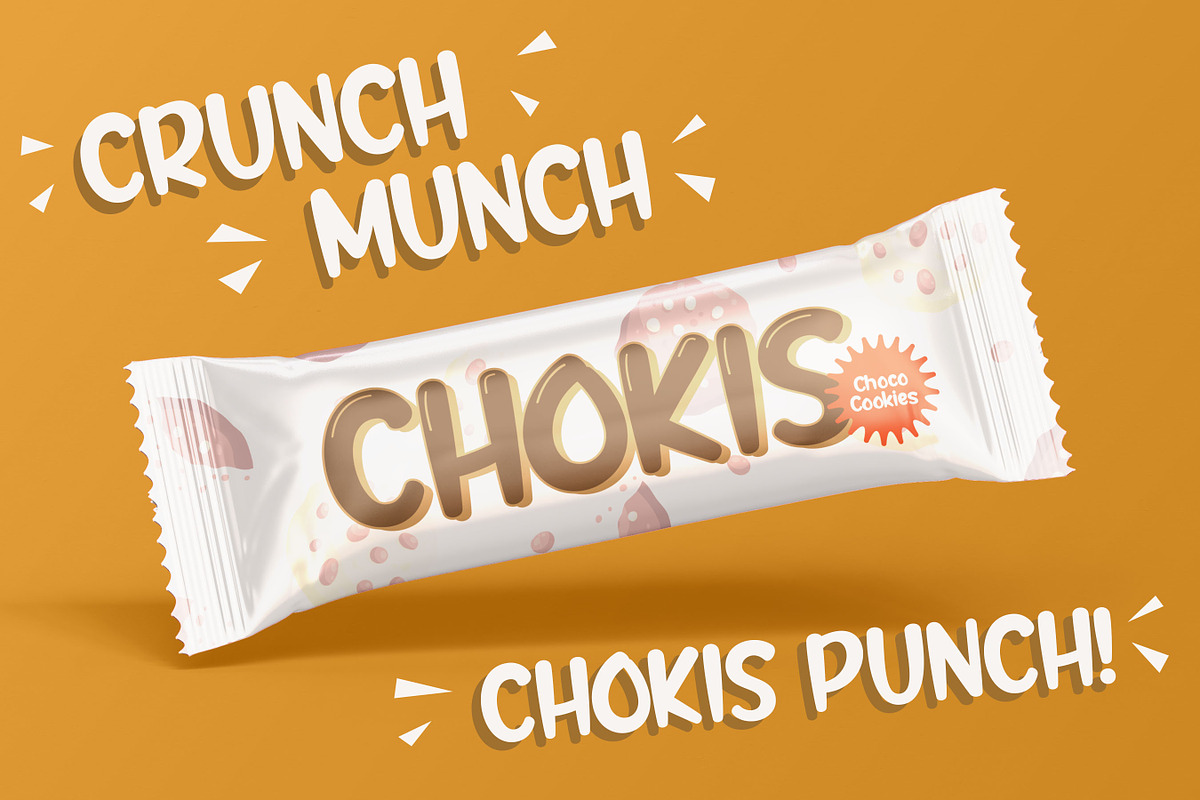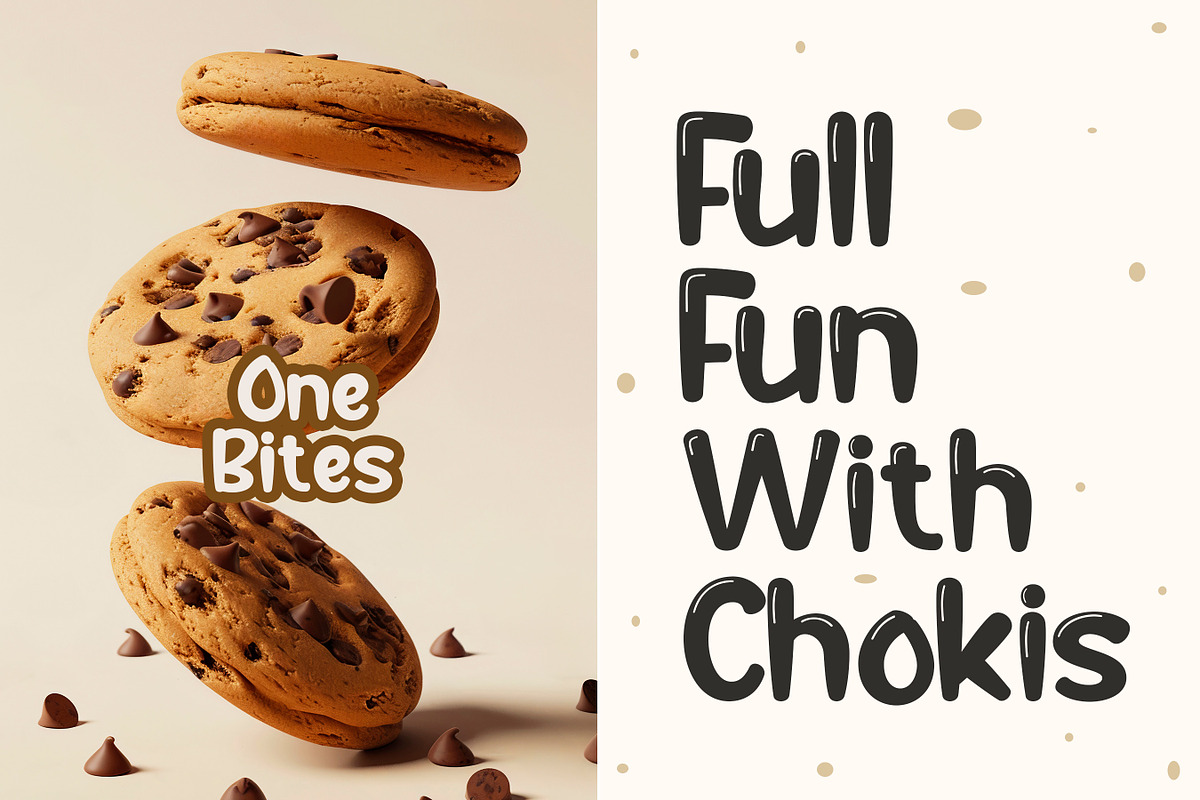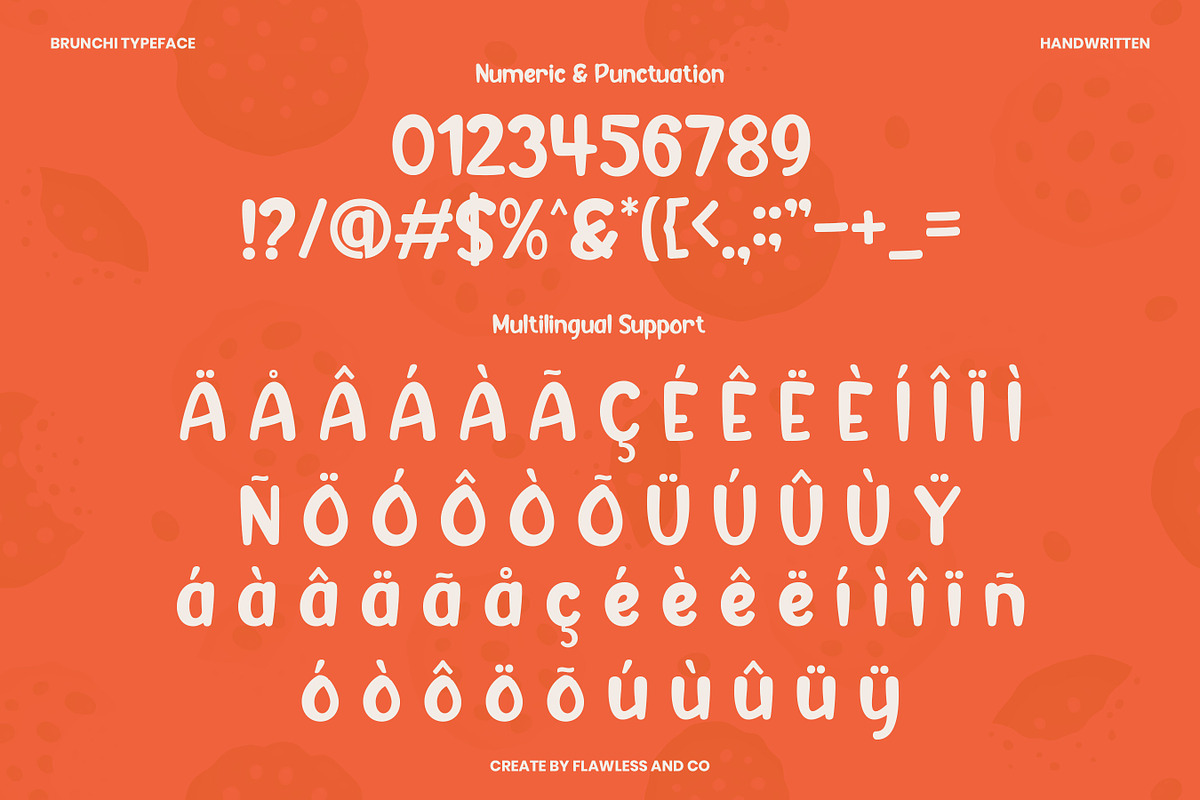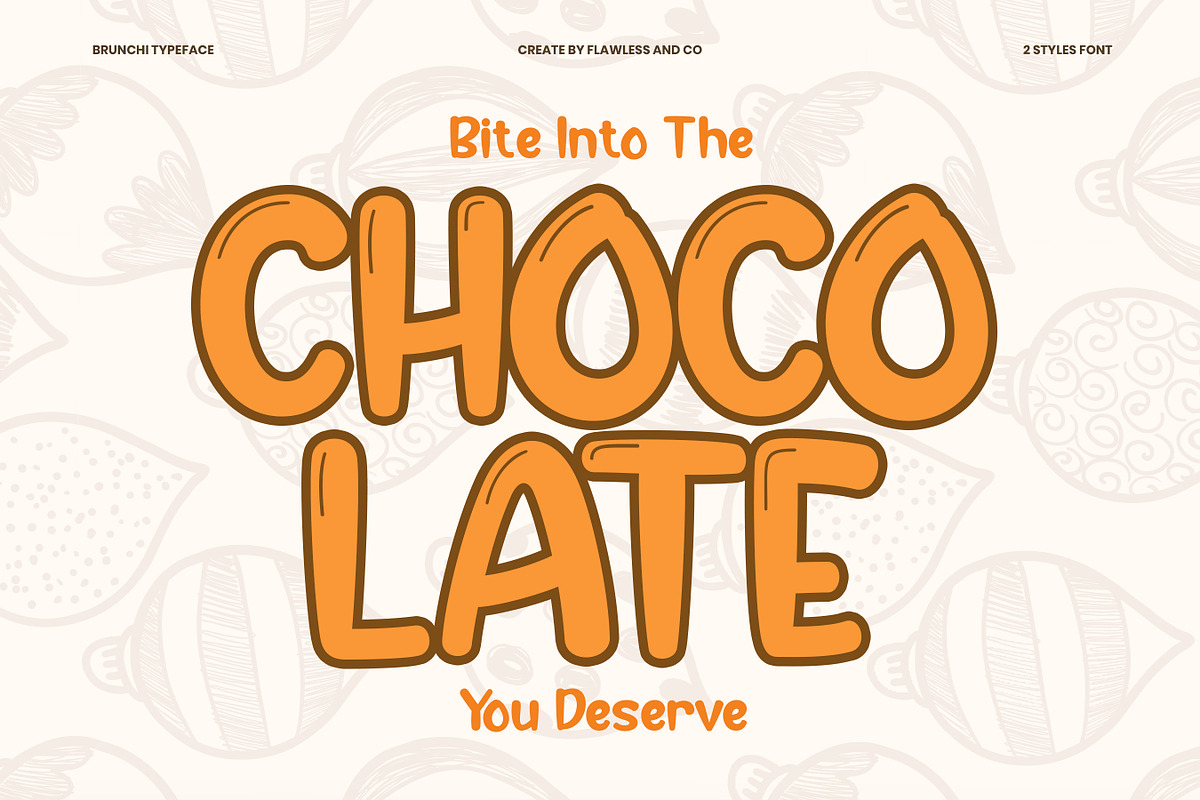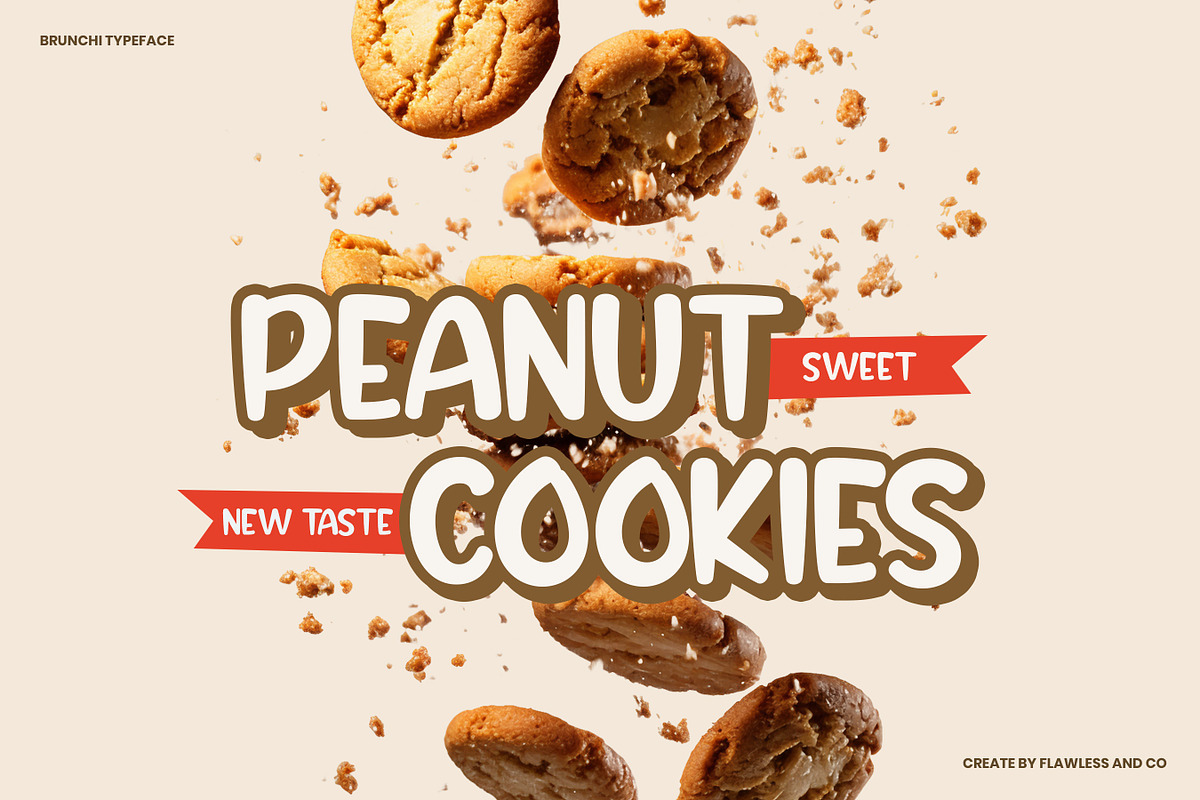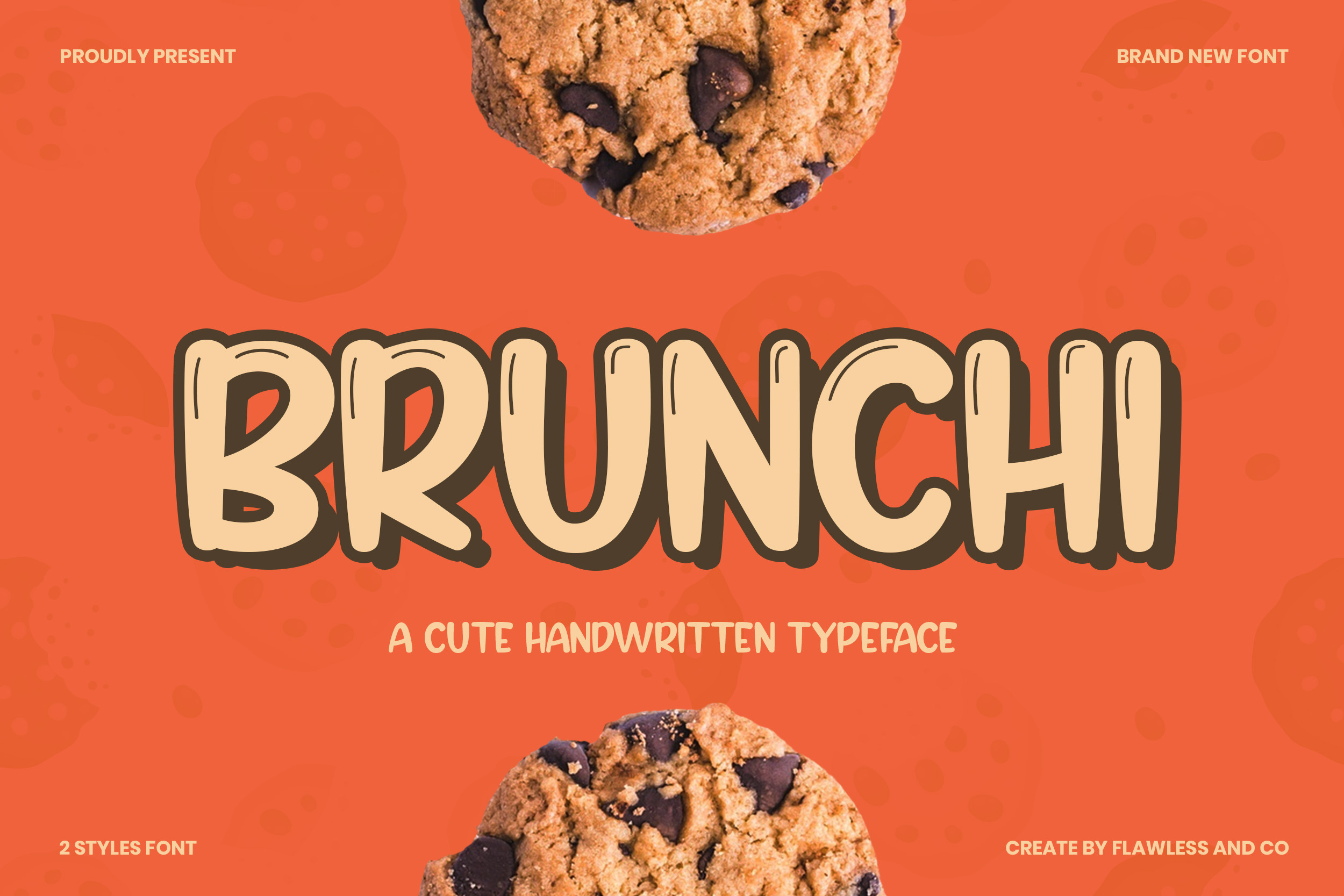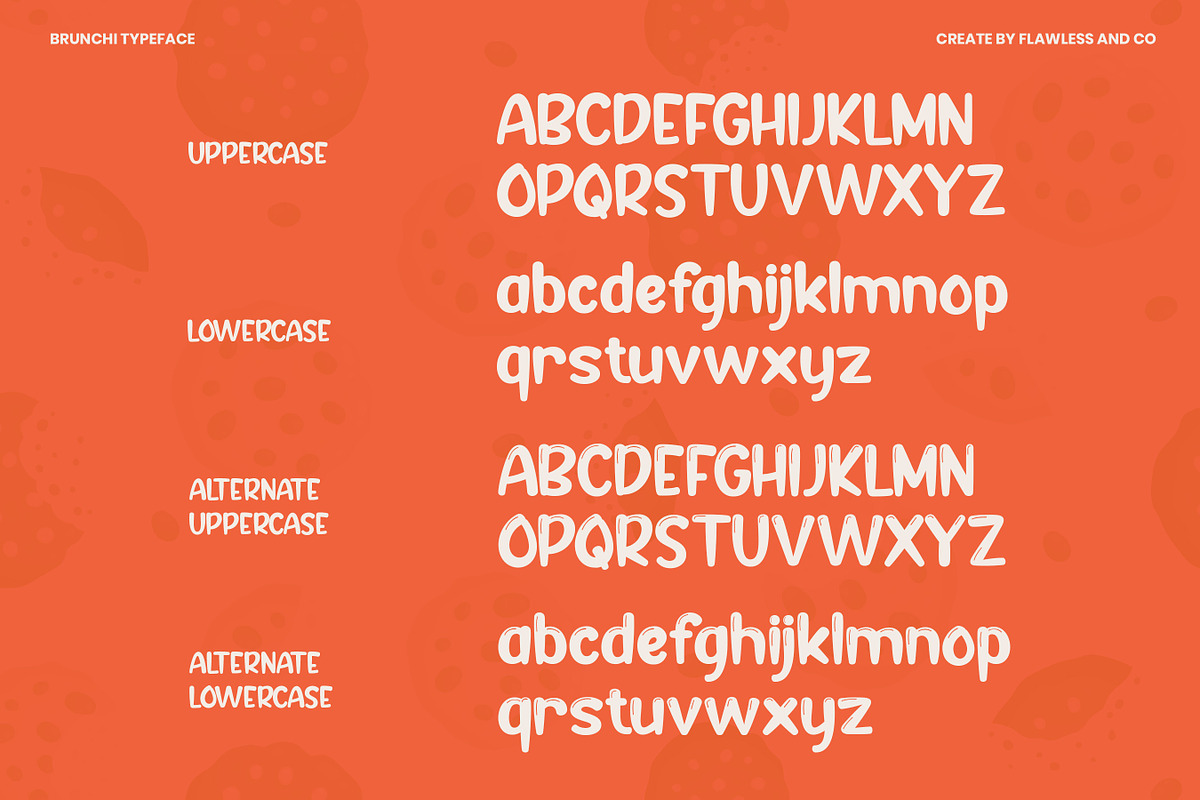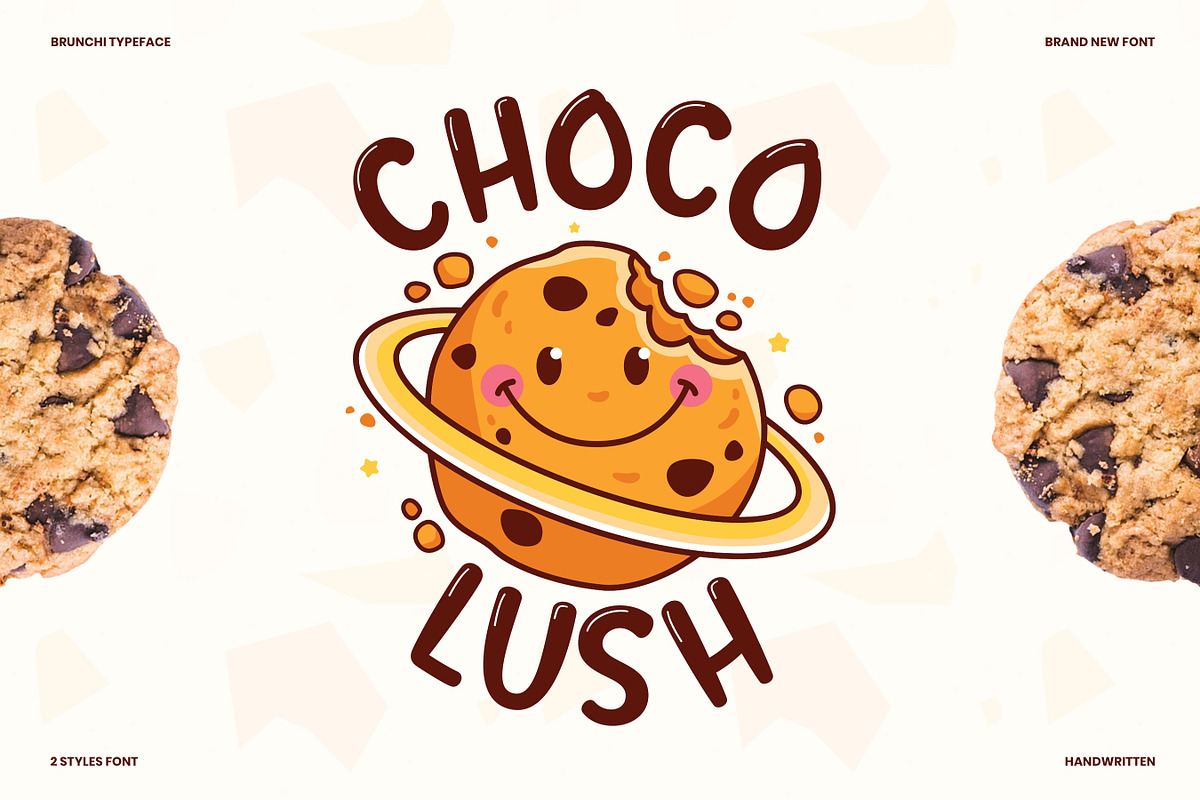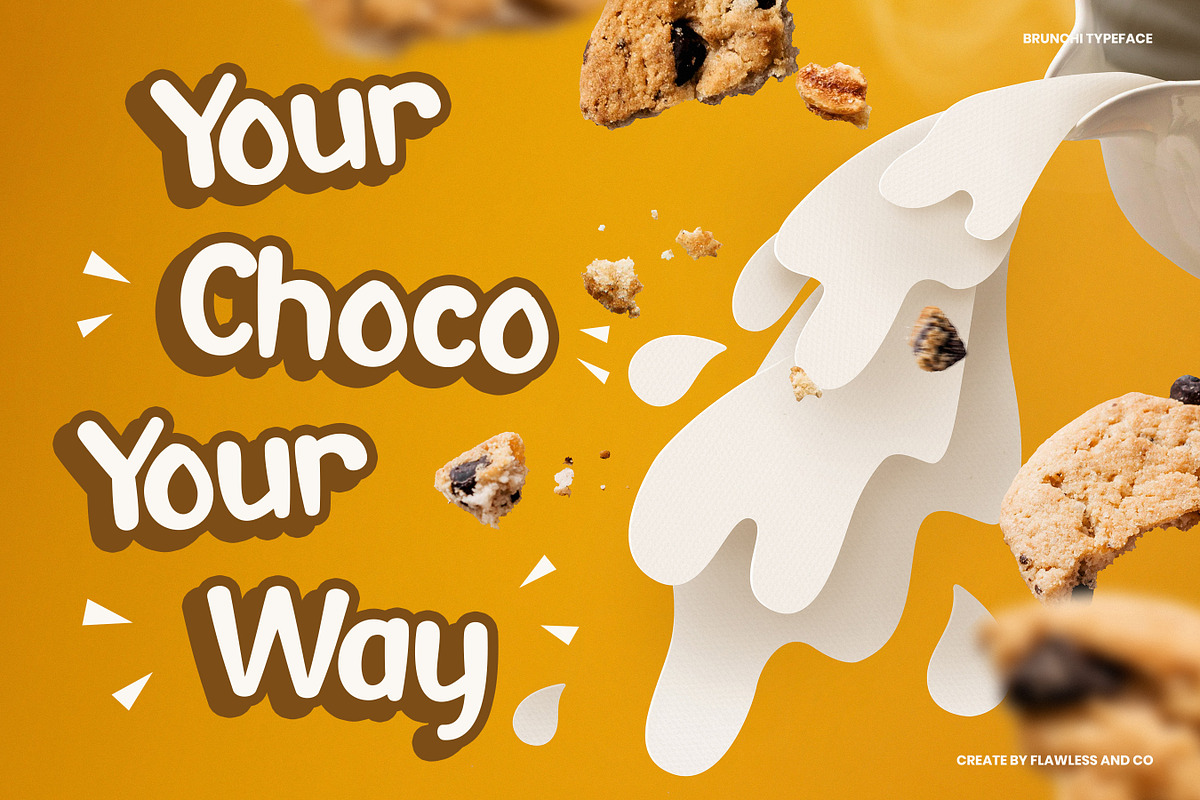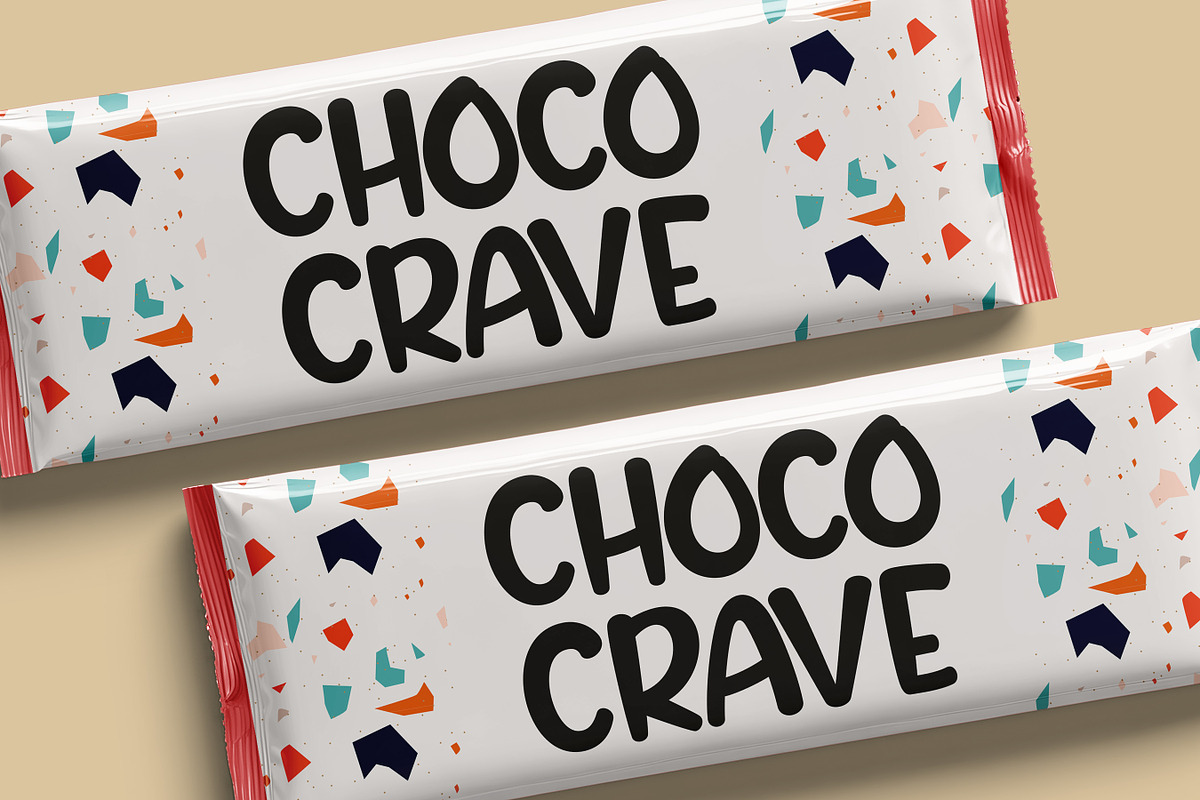
Brunchi - Handwritten Font
Brunchi - Handwritten Typeface Font
Brunchi a fun and bouncy handwritten typeface that’s full of character and charm. Inspired by the joy of cookies and childhood treats, Brunchi brings a warm, friendly, and slightly quirky feel to any design. Its rounded edges and playful strokes make it perfect for adding a hand-crafted, inviting vibe to your projects. Brunchi comes in 2 delicious styles — clean and shadowed — that you can mix and match for that extra layer of yum. Whether you're designing for packaging, kids' products, snack brands, or just want to sprinkle a bit of cuteness on your layout, Brunchi is the font to reach for!
Who Should Use Brunchi?
Brunchi is made for creatives, designers, and brands who want to bring a sense of fun, friendliness, and sweetness to their visuals. It’s perfect for those looking to create a warm, approachable vibe with a handwritten touch.
Brunchi is ideal for:
- Food and snack brands aiming for a playful, yummy appeal
- Children-focused products, toys, and book covers
- Fun packaging and merchandise design
- Crafters and DIY creators looking for a bold, friendly font
- Social media managers and bloggers who want eye-catching, cheerful typography
- Designers working on quirky logos or lighthearted branding projects
A Must-Have Font for Brand, Logo, Food, and Snack Creators and Designers
Brunchi is the go-to handwritten font for designers who want to bring warmth, personality, and a homemade feel to their creations. Whether you're crafting logos for food brands, designing packaging for snacks, or building friendly brand identities, Brunchi adds a natural, inviting charm that instantly connects with audiences.
Why Choose Brunchi for Brand and Logo Projects?
Brunchi brings a handcrafted, approachable feel that makes your brand look authentic and friendly. Its smooth strokes and casual handwritten style are perfect for food packaging, café branding, or lifestyle products that want to feel personal and warm. Brunchi helps your logo and brand identity feel more human—like a friendly smile in type form.
Suitable For:
- Cookie & snack branding
- Fun packaging design
- Children’s books and toys
- Social media graphics
- Handwritten quotes & posters
- DIY projects, stickers & more!